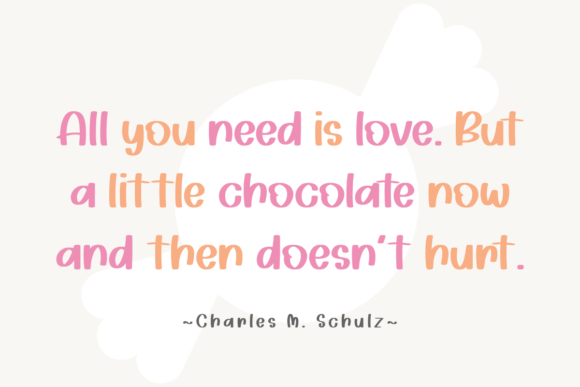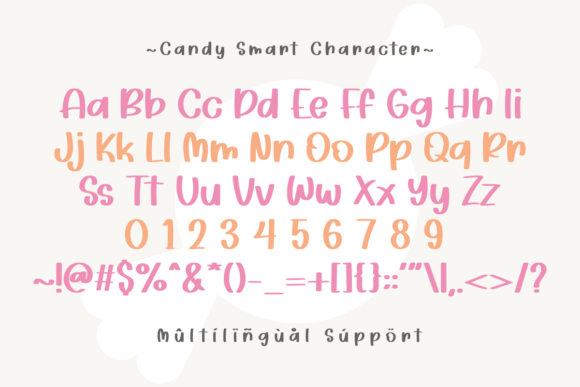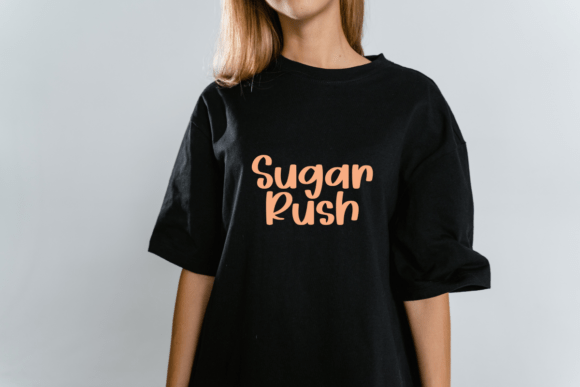
Candy Smart Font
Candy Smart is a cute, bold display font. Add this bold font to your design and watch how it brings it to life. Get inspired by her unique and beautiful style and add it to your favorite designs!